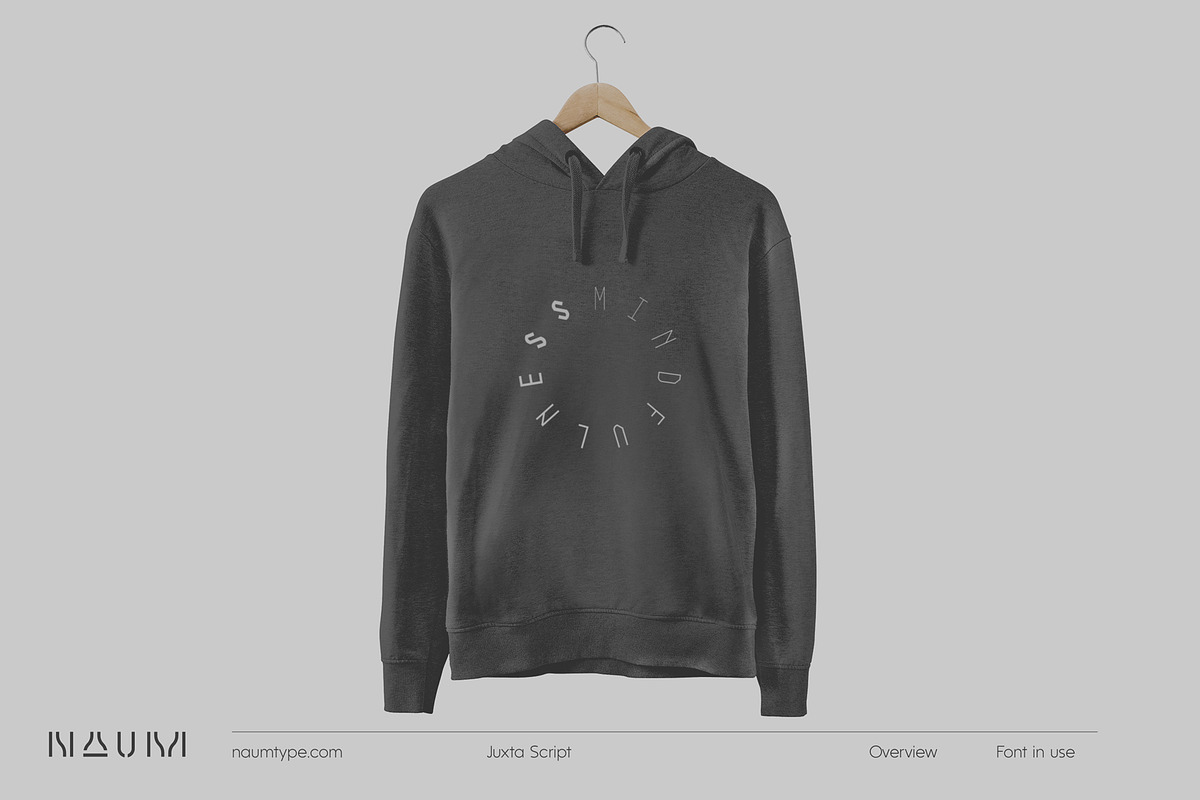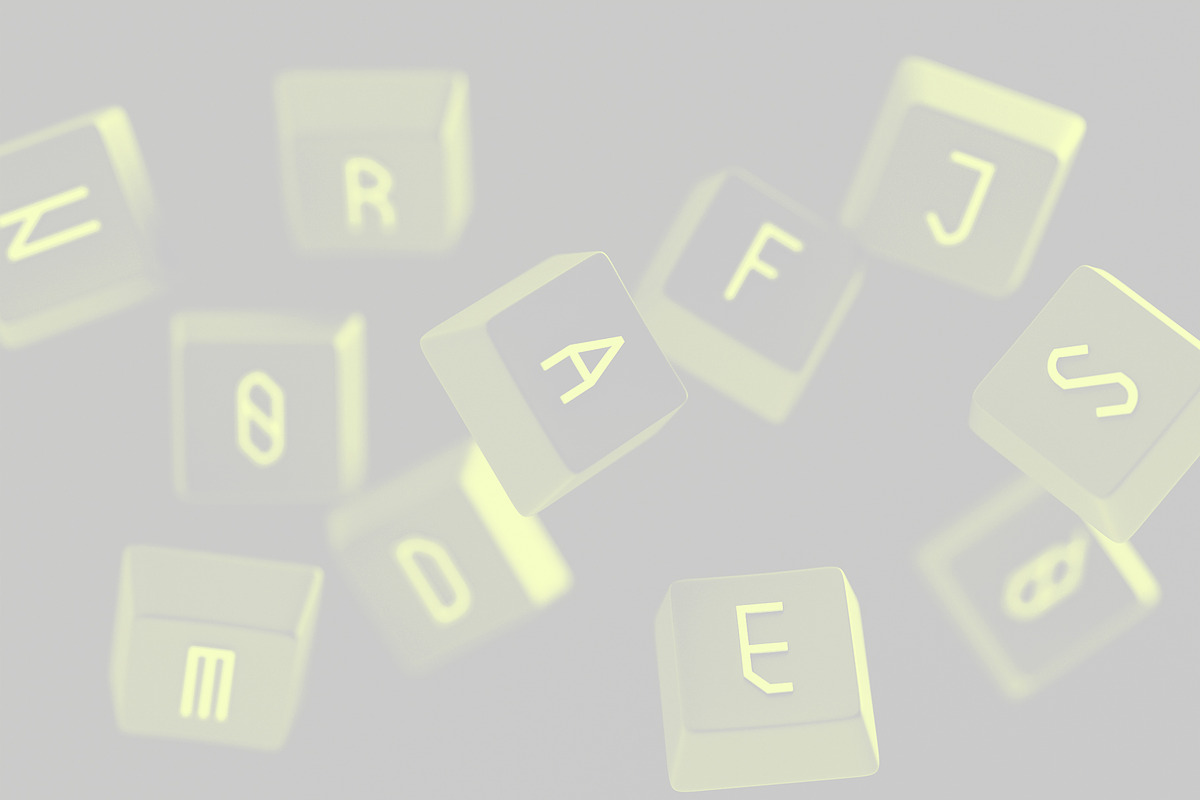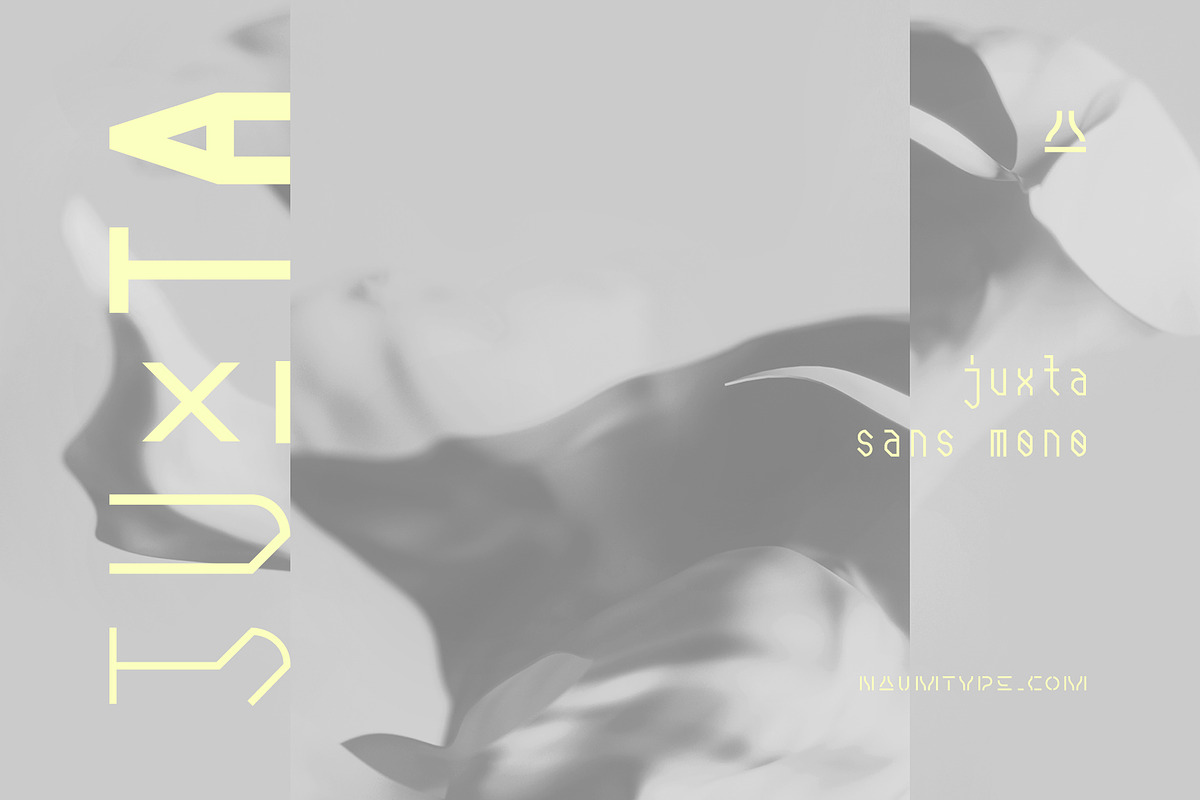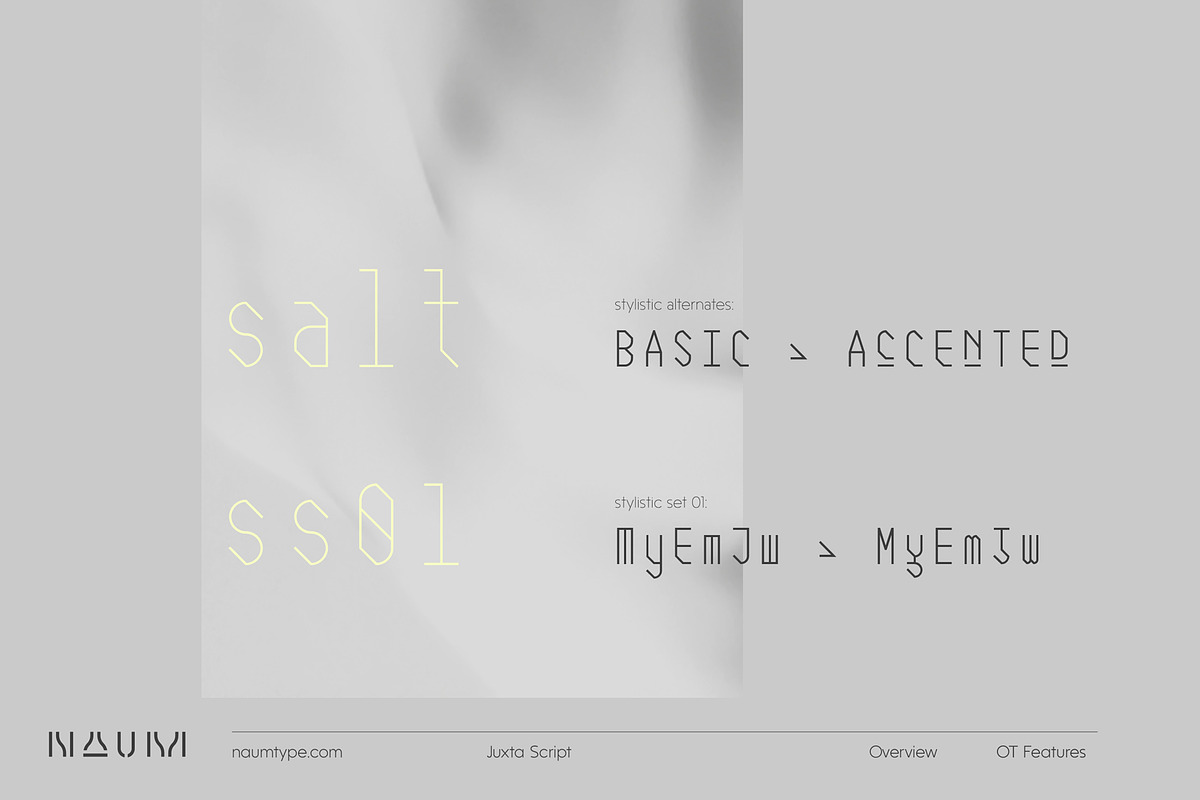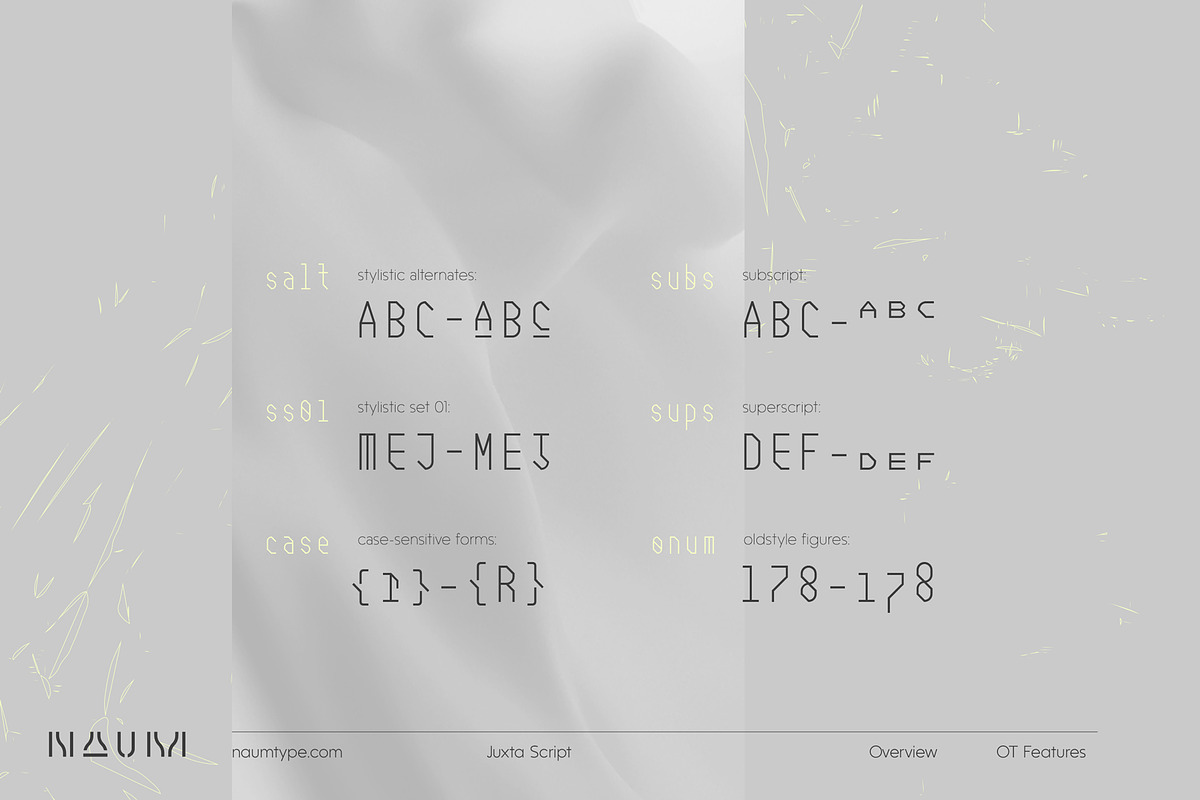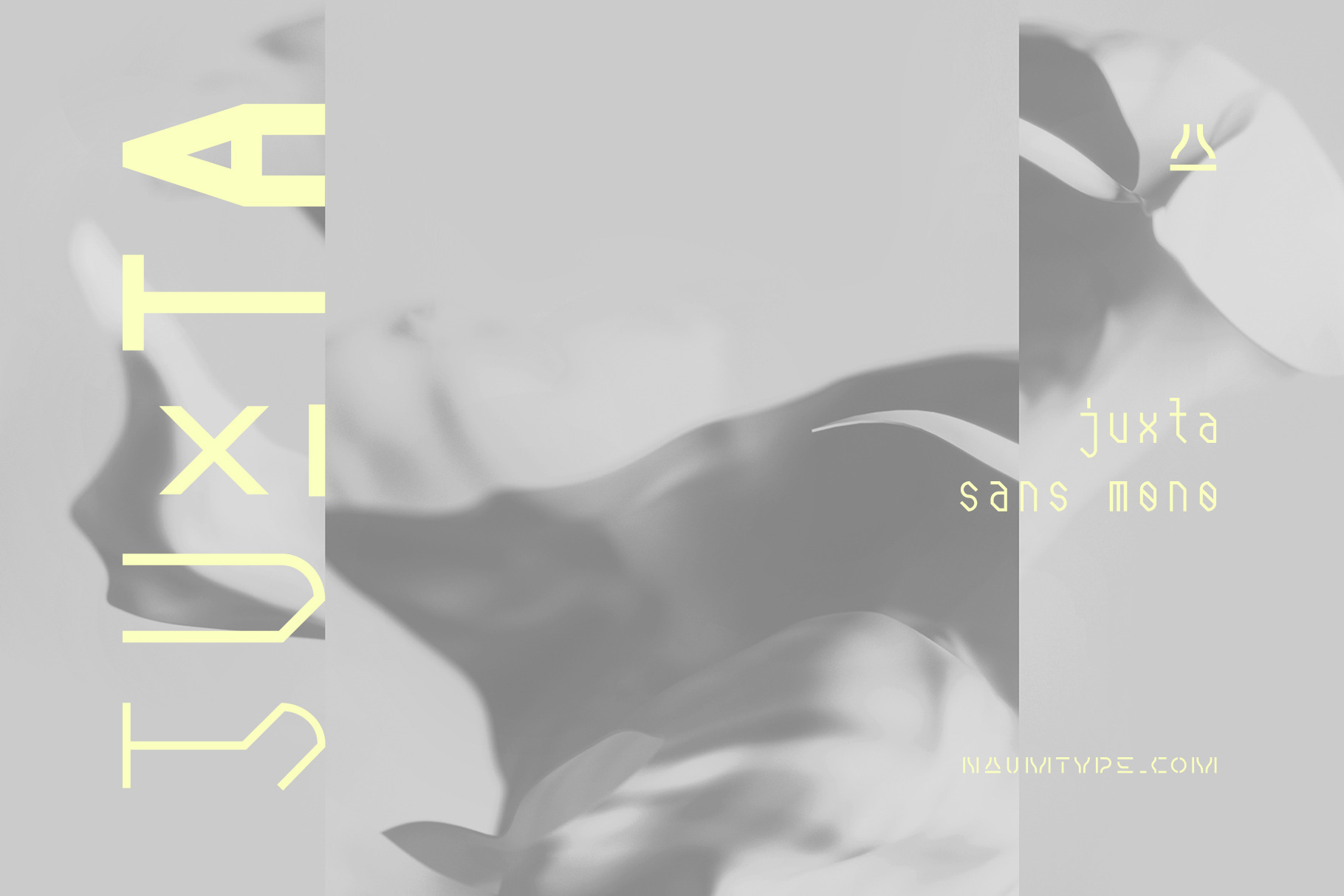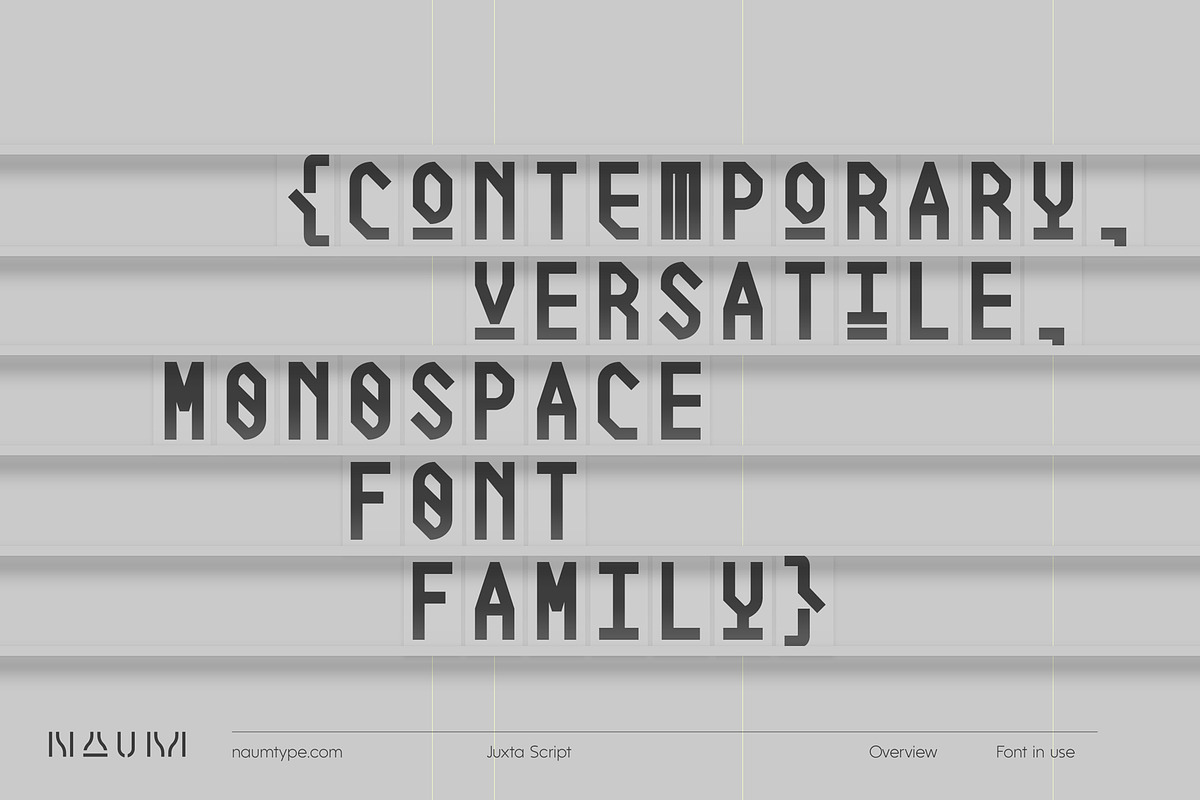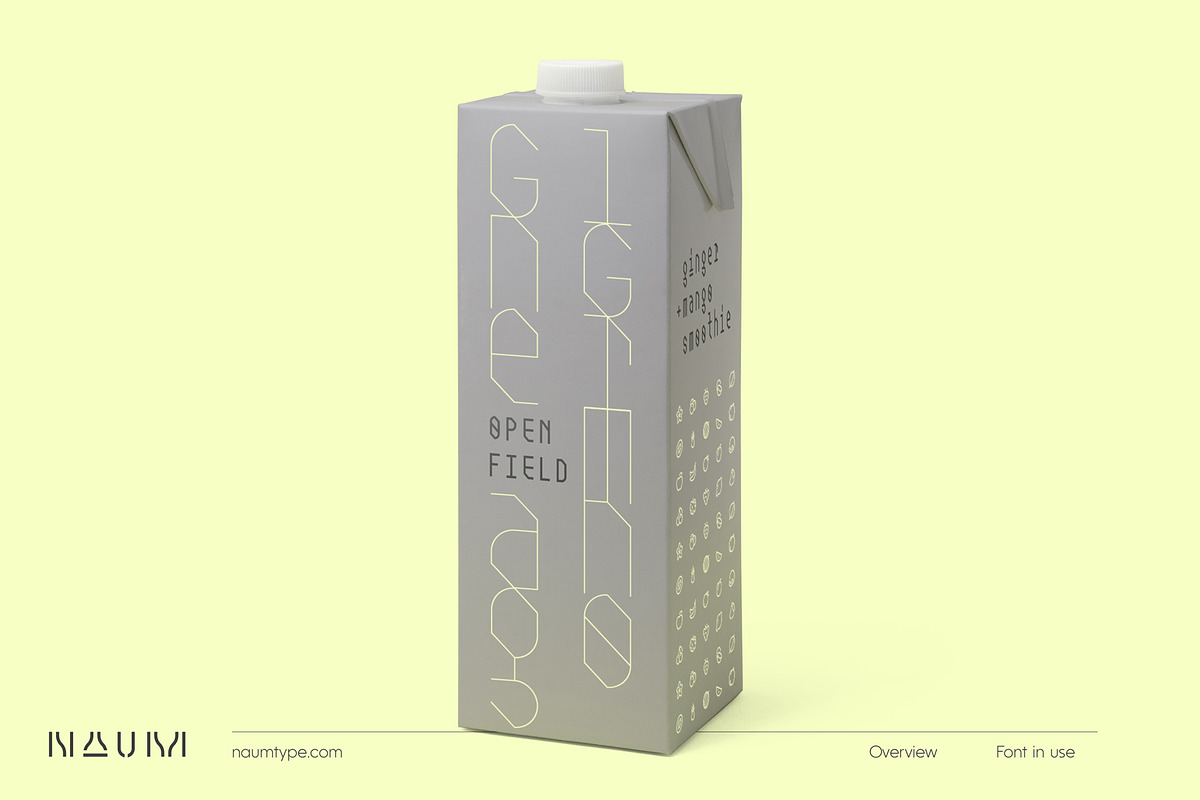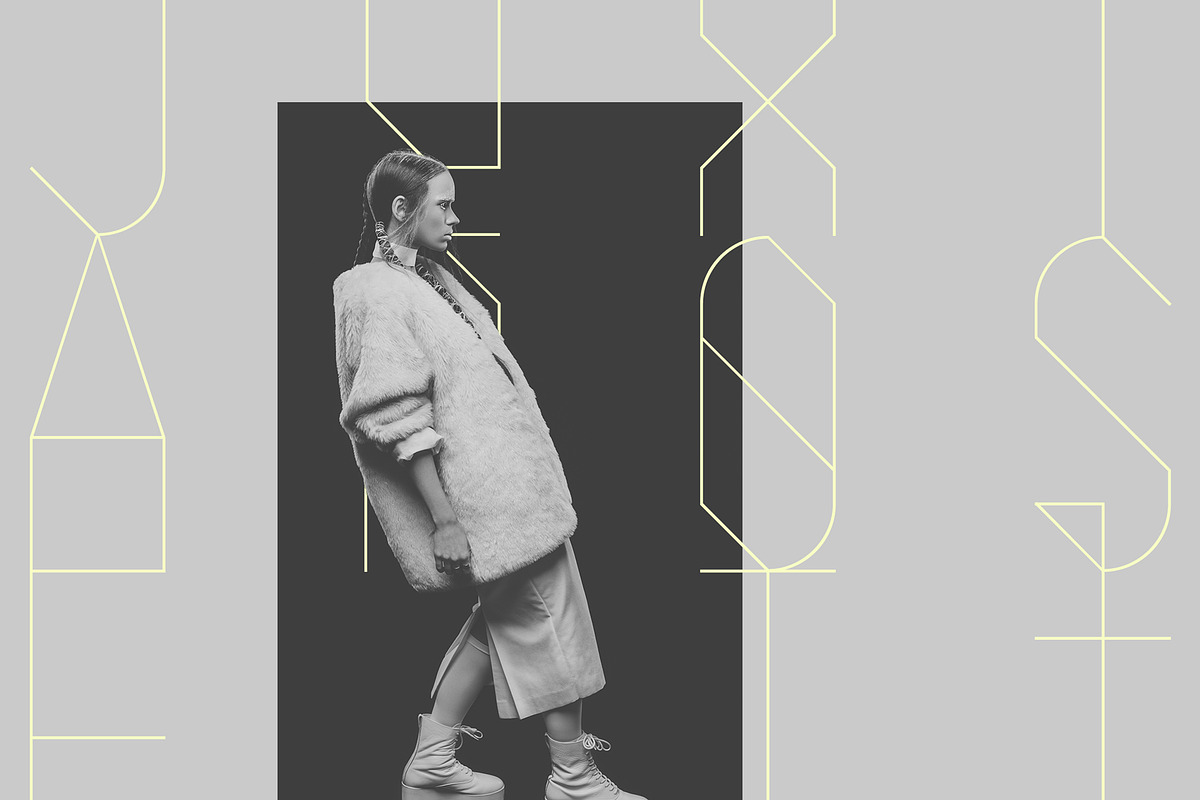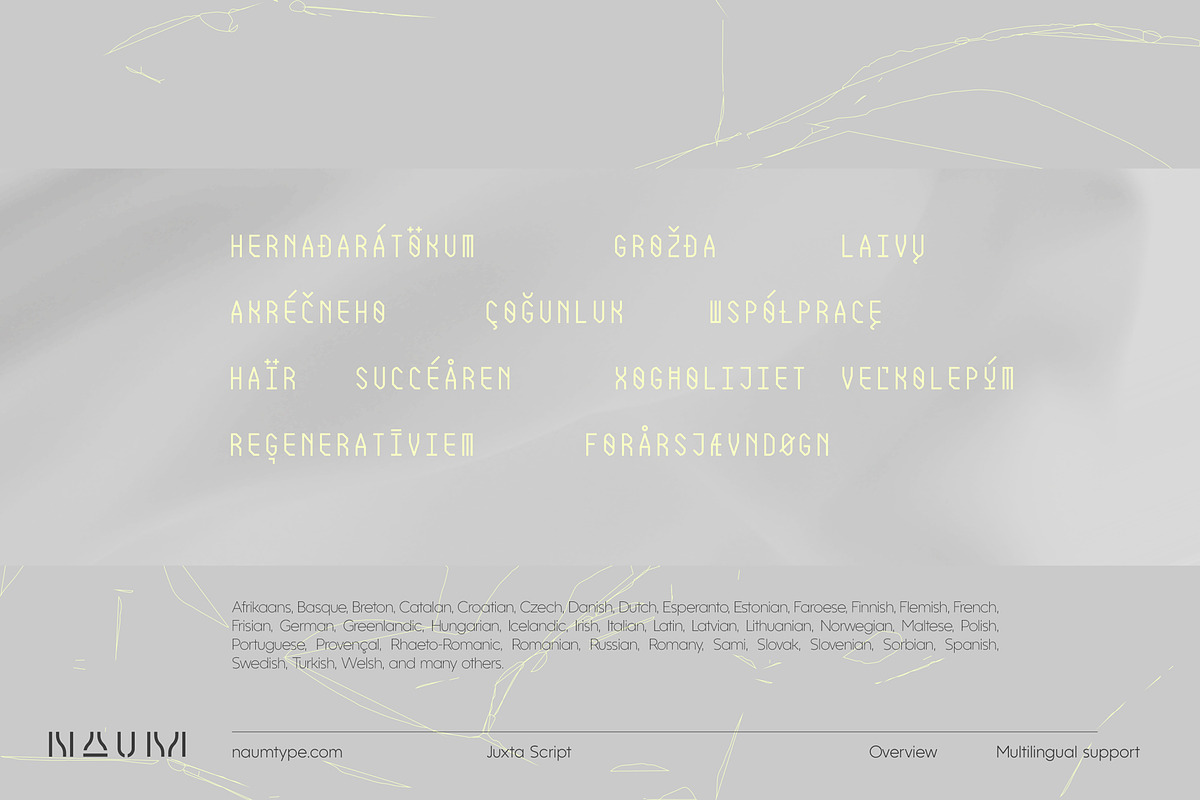
Juxta Sans Mono | 8 fonts
Juxta Sans Mono is a new geometric monolinear monospace font family, part of the Juxta superfamily, inspired by the monospaced font aesthetics and Scandinavian design.
Juxta has several style-forming elements: 45° beveled bowls, cross out letters, squared m and w arcs and other unobvious letter structures. Numerous OpenType features and 8 weights offer great customization potential.
Juxta was designed primarily as a display font, but its monospace origin and wide spacing allow it to be used in text body if you need to add pragmatic or tech feel to it. In large sizes its perfect grid geometry gives your design the spirit of Nordic minimalism.
- 662 glyphs
- 8 weights
- stylistic alternatives (underlined letters)
- stylistic set 01 (few letters with different structures for font diversity)
- case sensitive forms
- subscript and superscript (full set of capitals with auto kerning)
- old-style figures
Languages Supported: Latin Extended A (Western and Central European languages), Cyrillic (Russian, Ukranian, etc.)